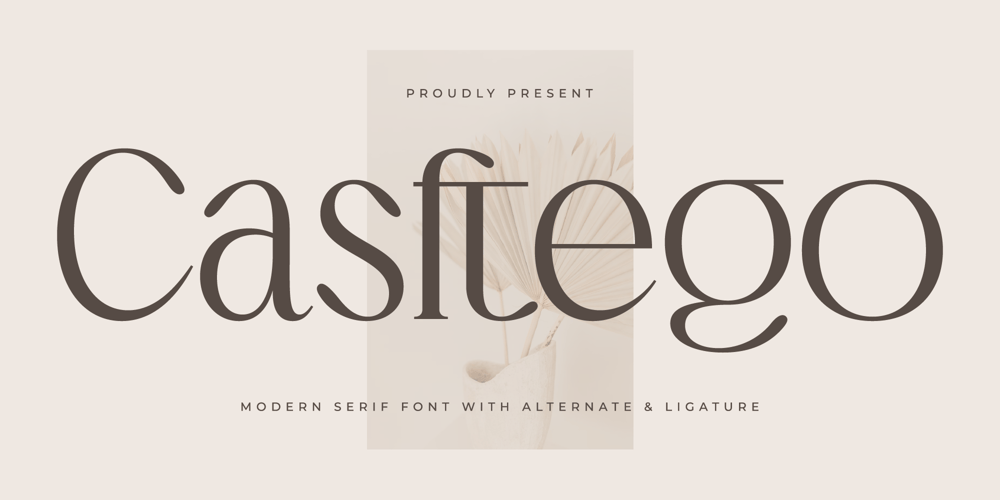
Casftego Font Family was designed by Heru Utama Putra and published by Letterena Studios. Casftego contains 2 styles and family package options. Casftego is a modern and classic serif typeface that has its own unique style and modern look. This typeface is perfect for an elegant & luxurious logo, book or movie title design, fashion brand, magazine, clothes, lettering, quotes, and so much more.